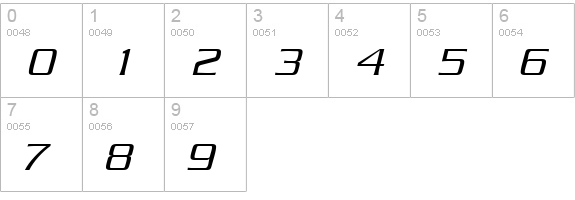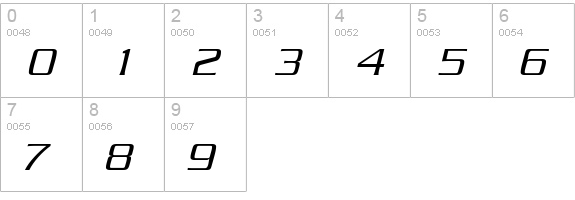
BoostLightSSK Italic is a distinctive, italic variant in the BoostLightSSK typeface family \xE2\x80\x94 well suited to design and typography projects.
BoostLightSSK Italic is a sleek and modern font that exudes sophistication and elegance. Its stylish slanted design adds a touch of flair to any project, making it perfect for use in branding, advertising, or editorial design. The italicized letterforms give a sense of movement and dynamism, making text appear lively and engaging. And the best part? BoostLightSSK Italic is available for free download at FontsMarket.com. This means you can easily access this stunning font and incorporate it into your designs without any cost. Don't miss out on the opportunity to enhance your projects with the eye-catching BoostLightSSK Italic font – download it today and take your designs to the next level!